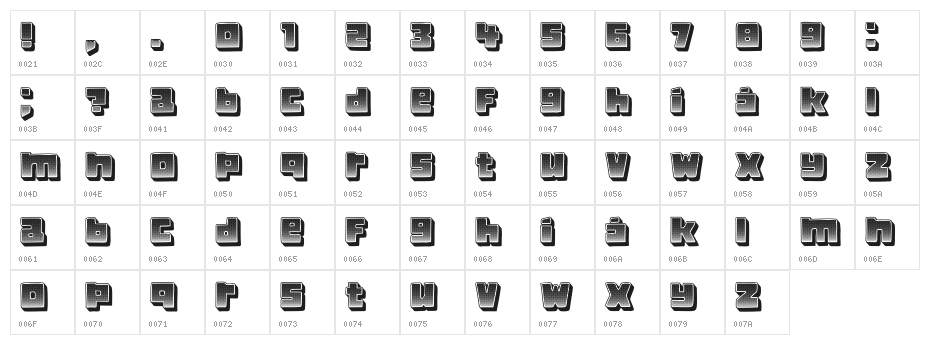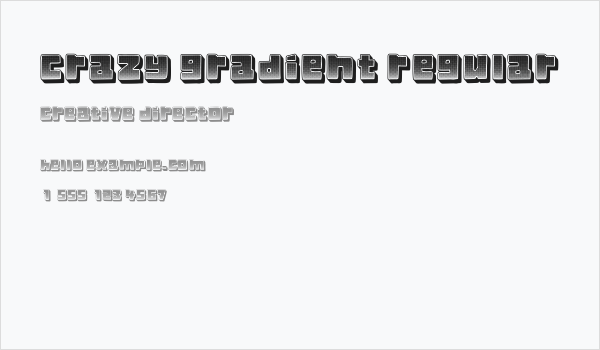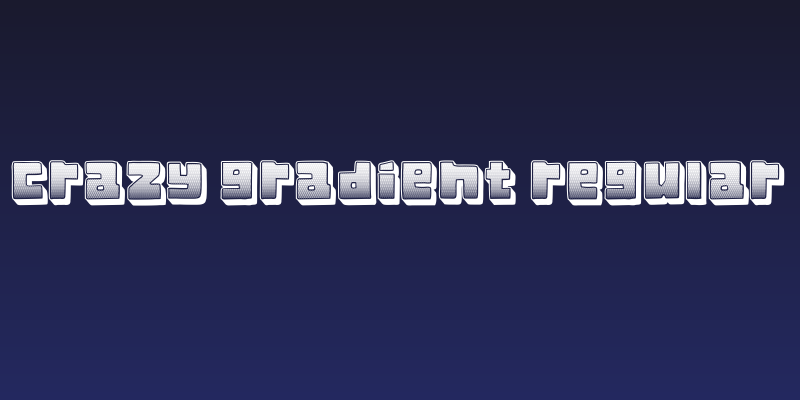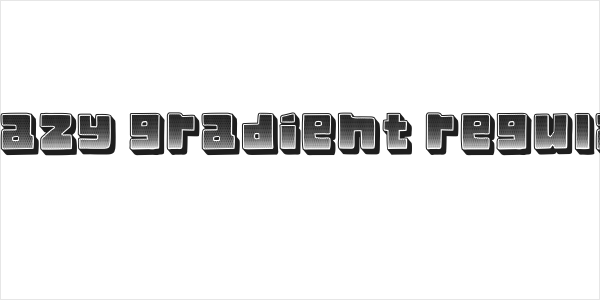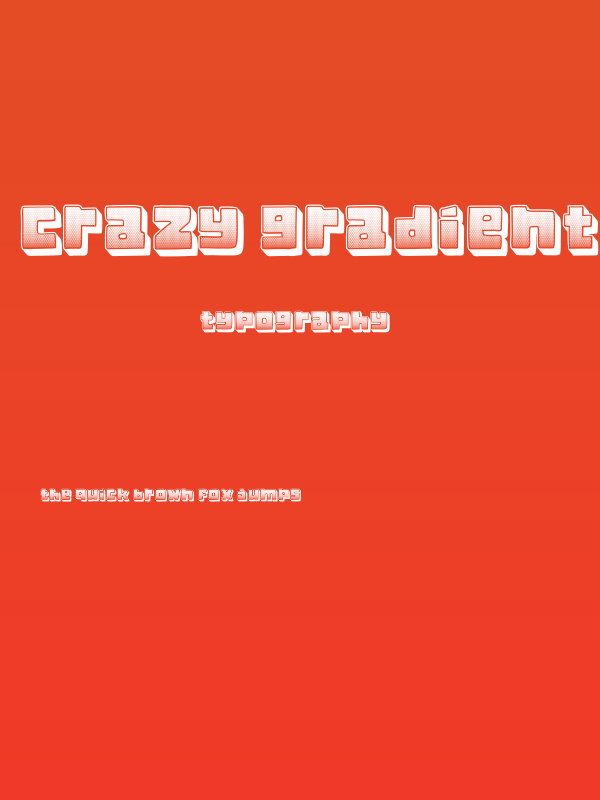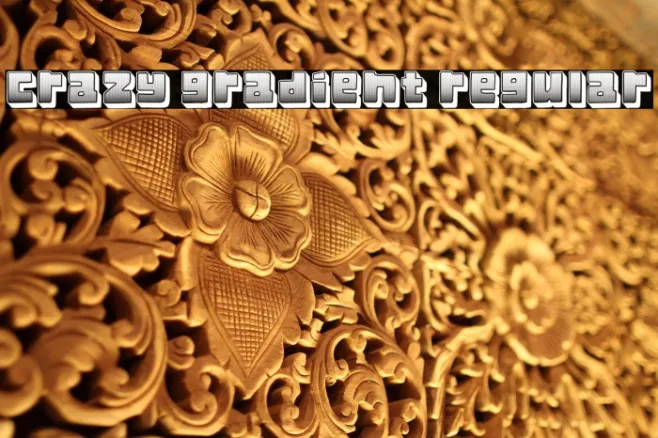
Crazy Gradient Regular Font
Crazy Gradient Regular Description
This font features a bold, three-dimensional design with a gradient effect that gives it a dynamic and eye-catching appearance. Each character is crafted with a blocky, geometric style, creating a sense of depth and volume. The gradient shading adds a modern twist, enhancing the visual impact and making it suitable for attention-grabbing designs. The uppercase and lowercase letters maintain a consistent style, with the numbers and special characters following the same aesthetic. This font is ideal for projects that require a bold statement, combining both retro and contemporary elements.
| Proposed Projects | Perfect for posters, headlines, logos, and any design needing a bold, modern touch. |